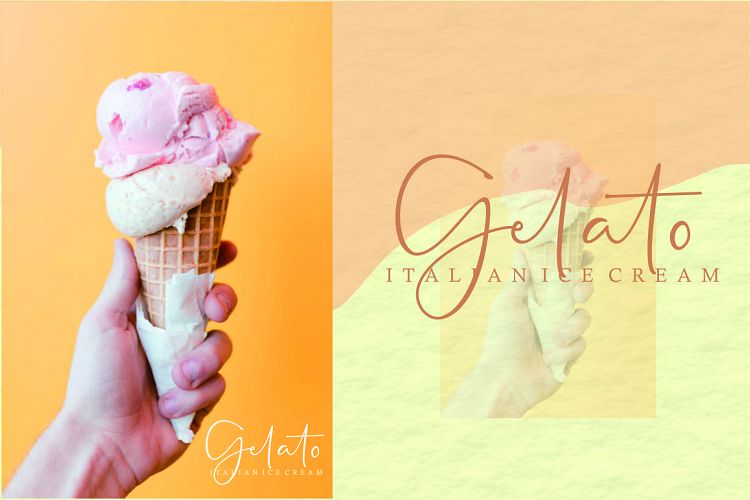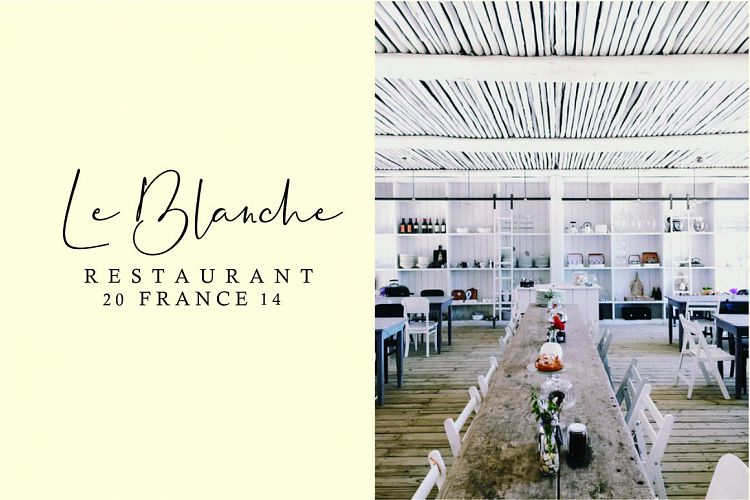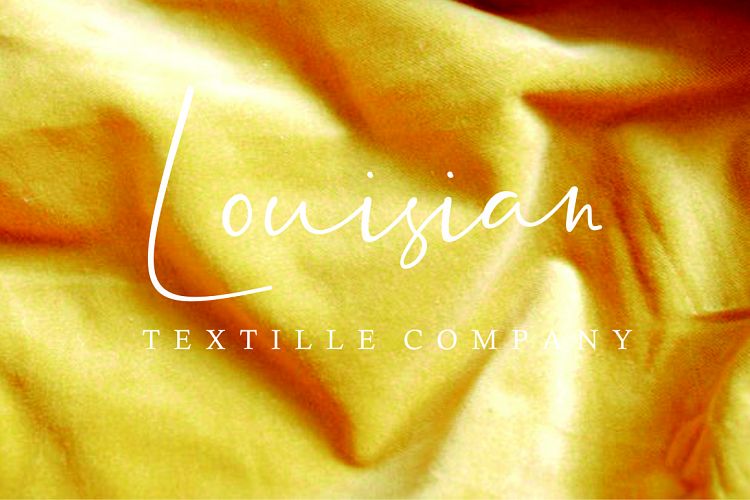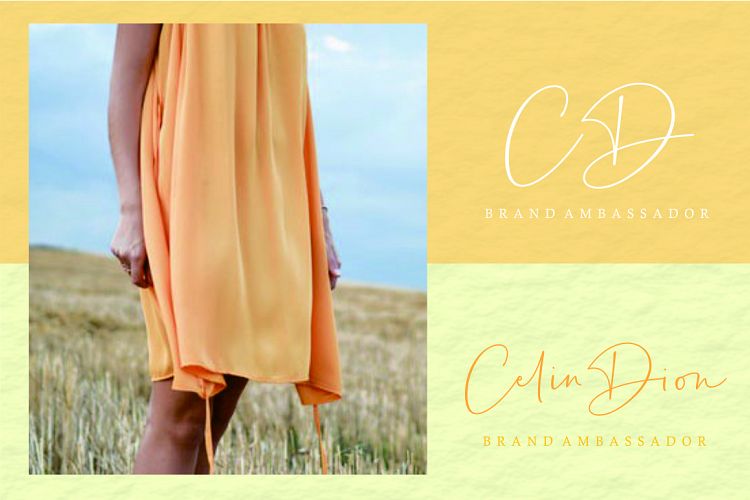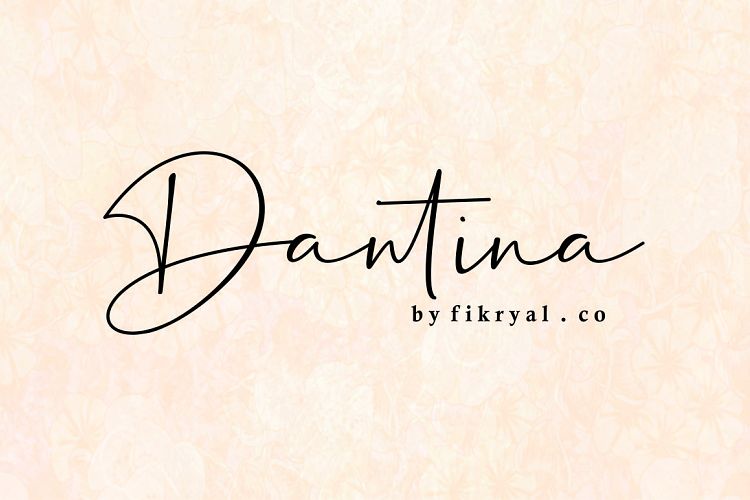
Dantina Handwritten Font
A combination of retro, vintage and modern handwritten styles to find exotic nuances in the characters. Introducing Dantina Font. Dantina is a handwritten font with little effect on fast hand scratches or signatures. This font is perfect for your needs such as: Logo, Branding, products, packaging, magazines, webdesign, advertisements, banners, posters, titles, etc. Dantina is equipped with complete alternates and very beautiful ligature, so it can make your product look elegant and attractive, and also Multilingual support!!!